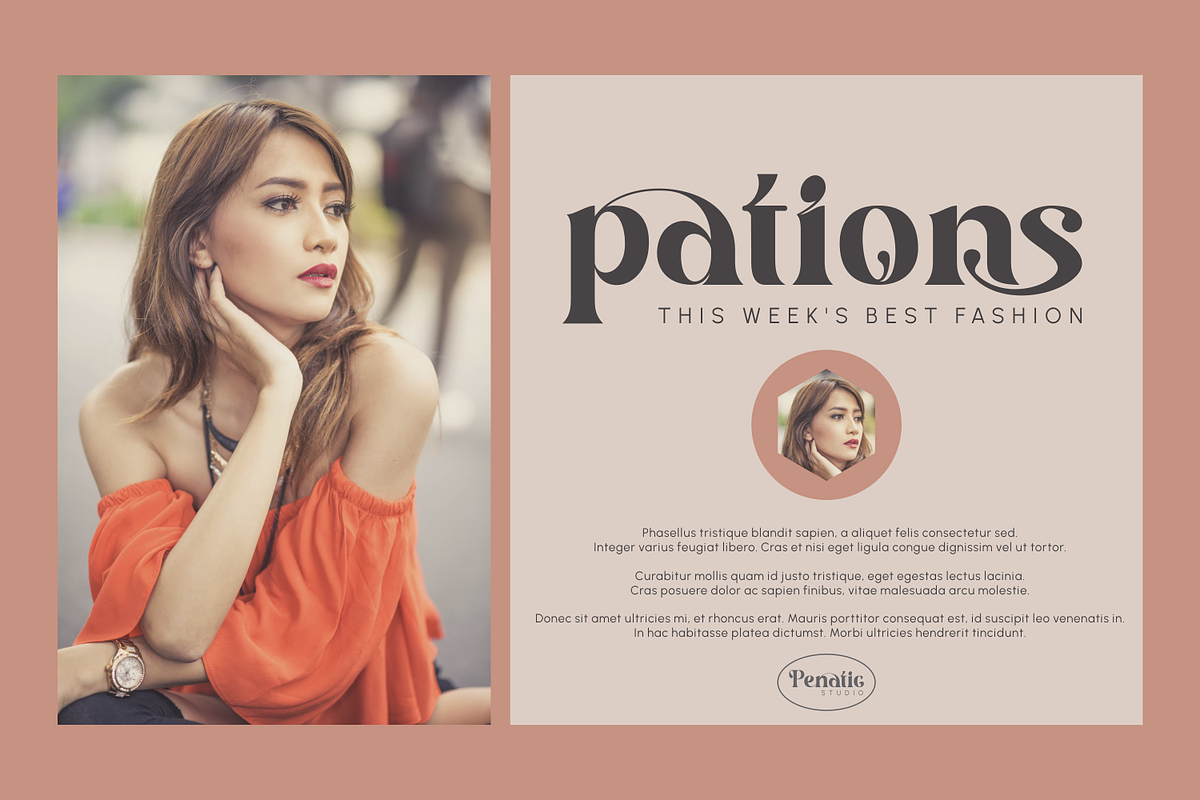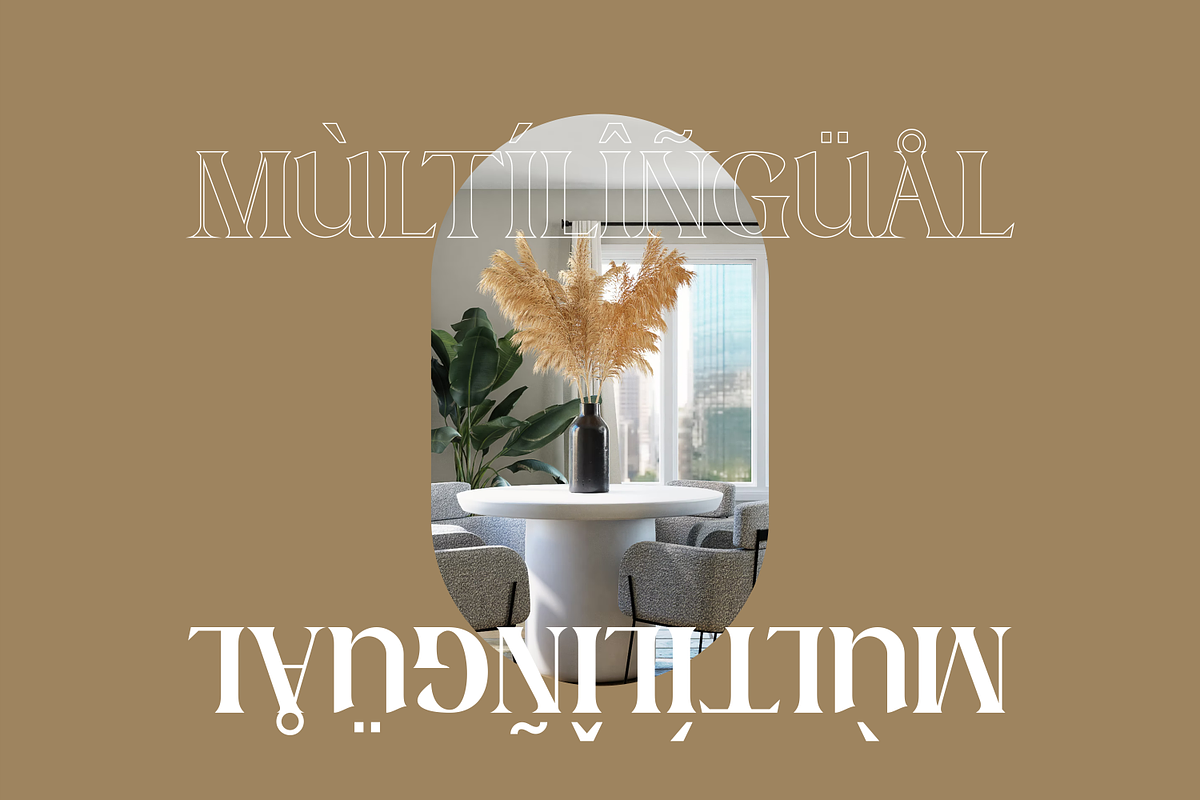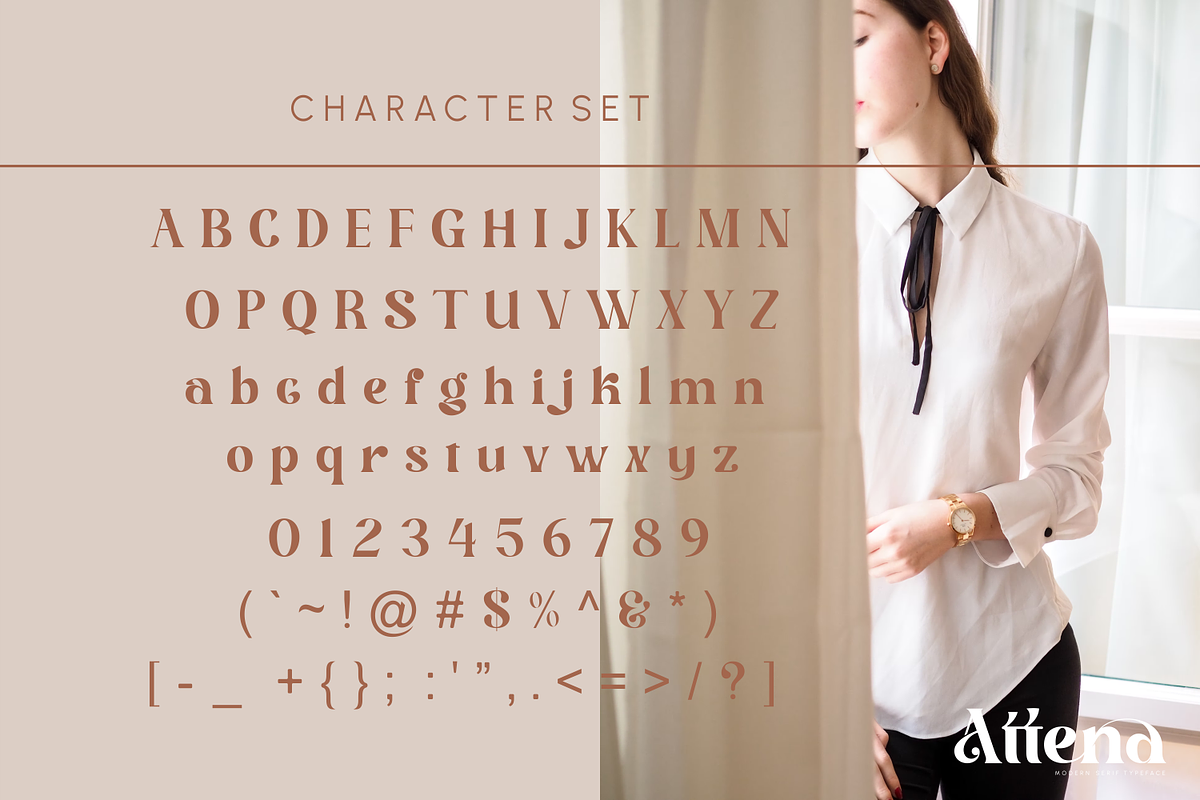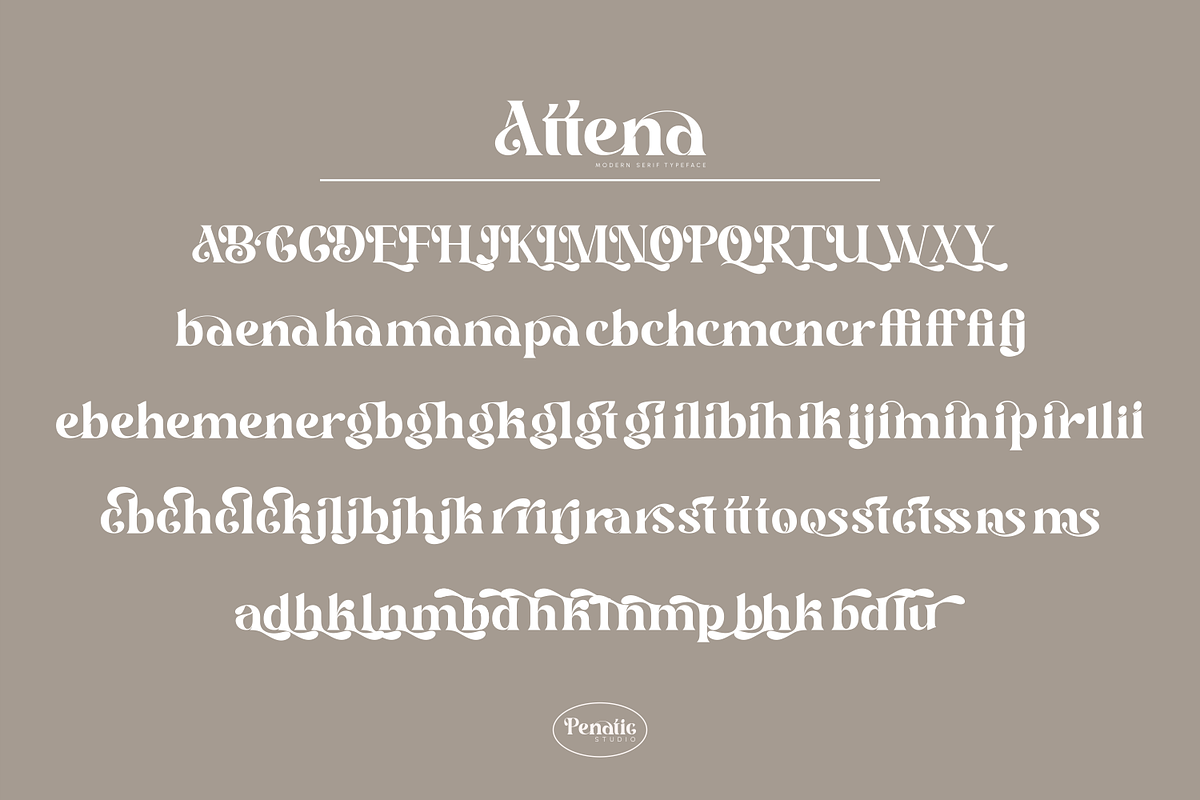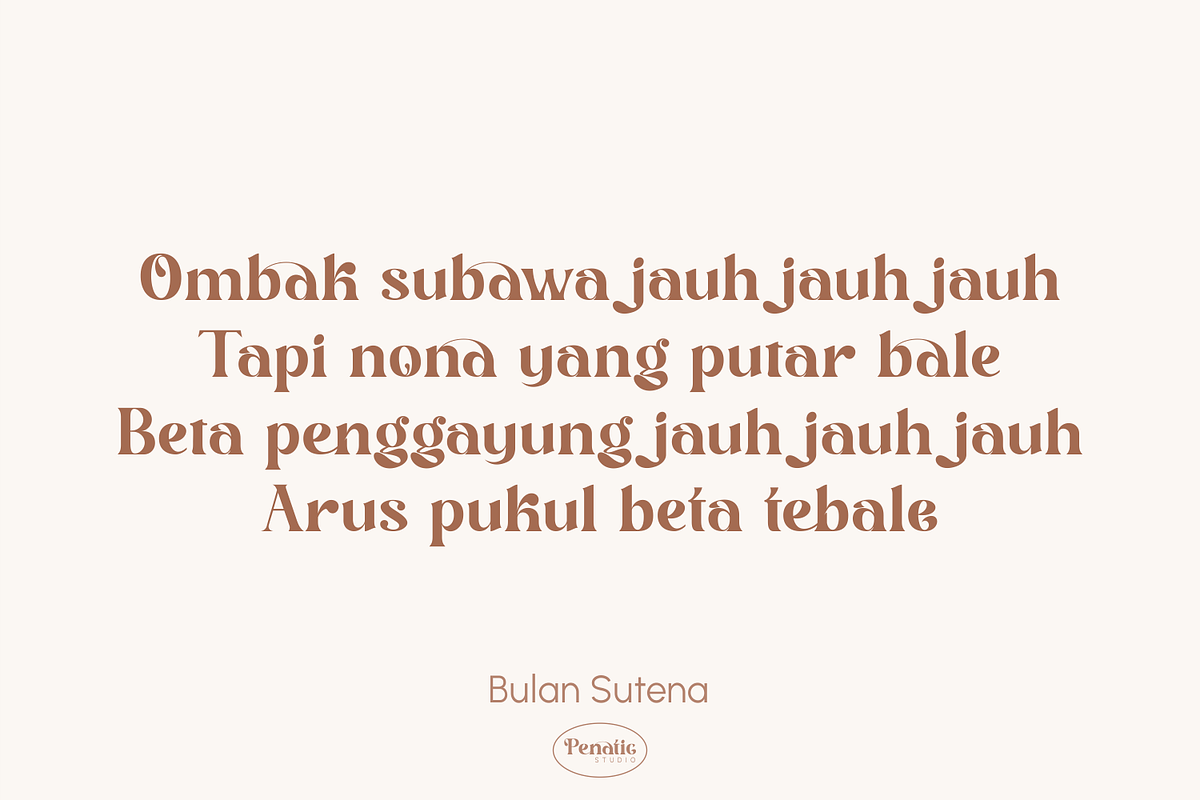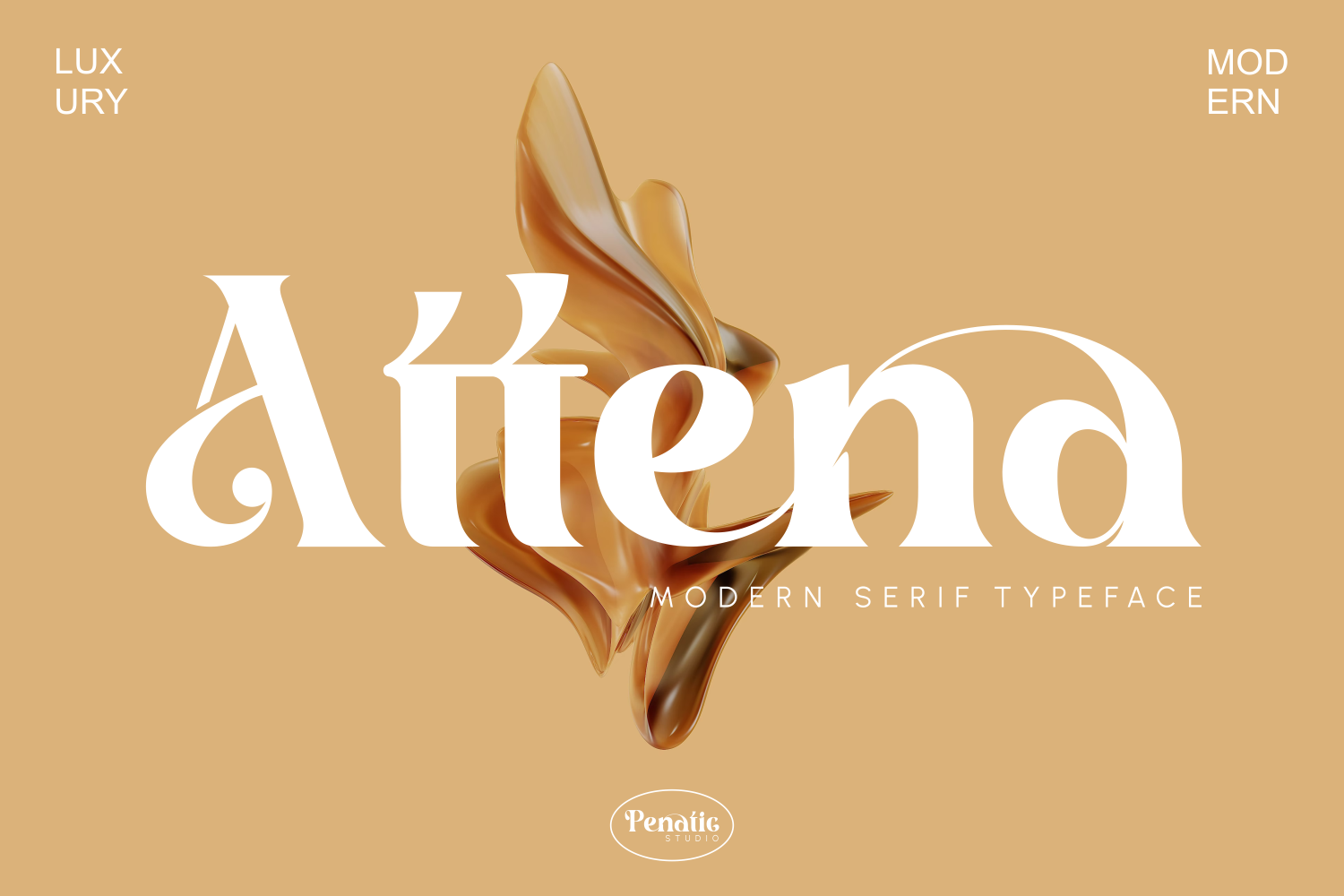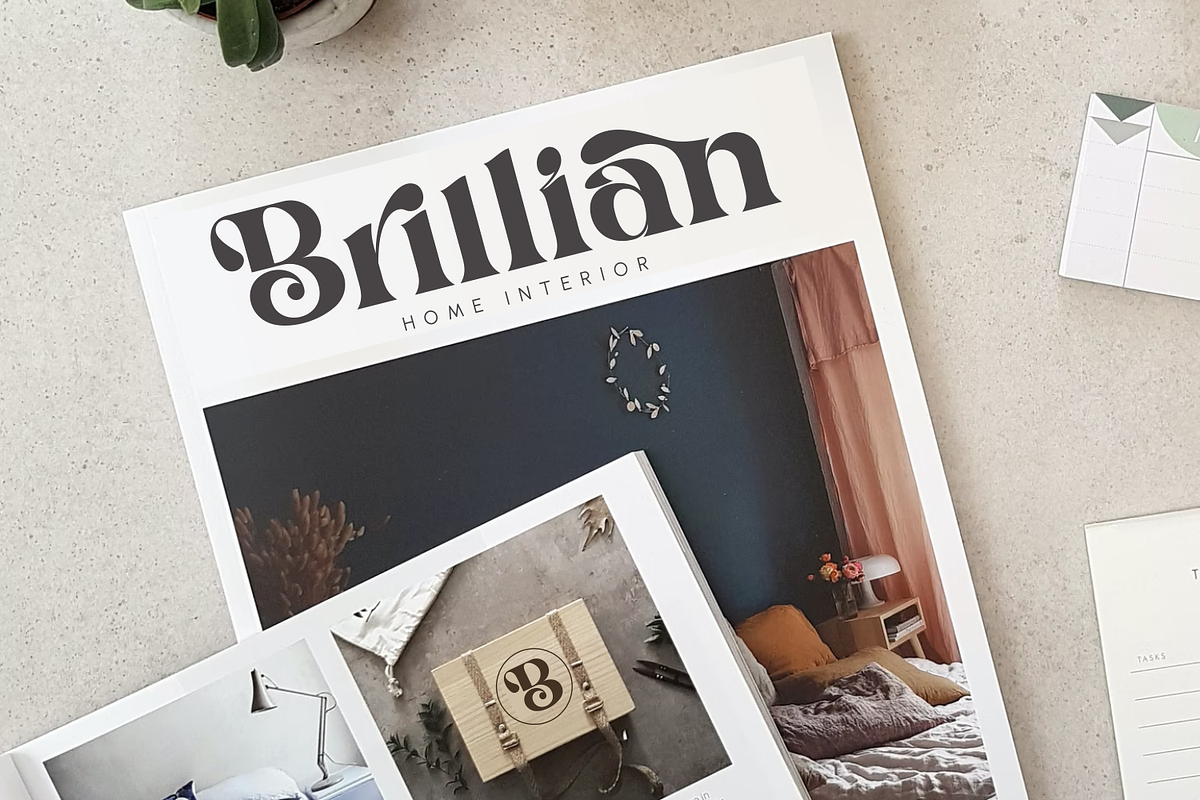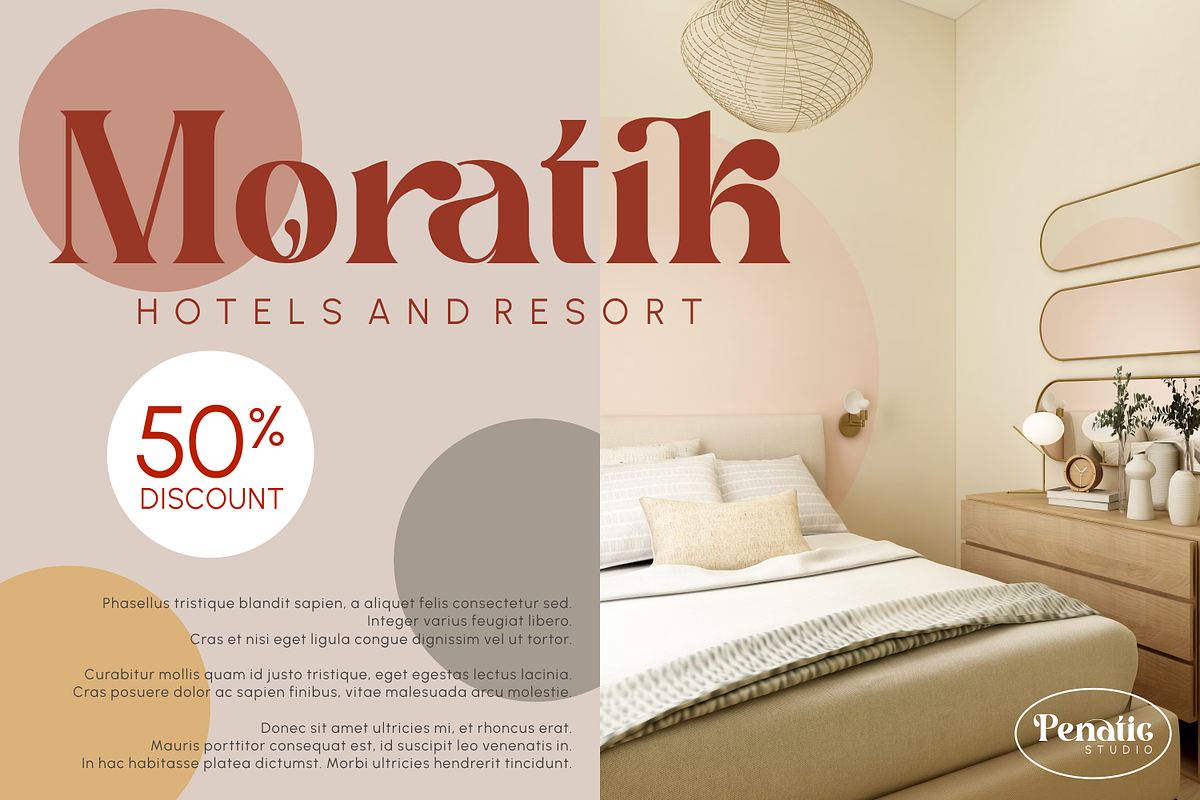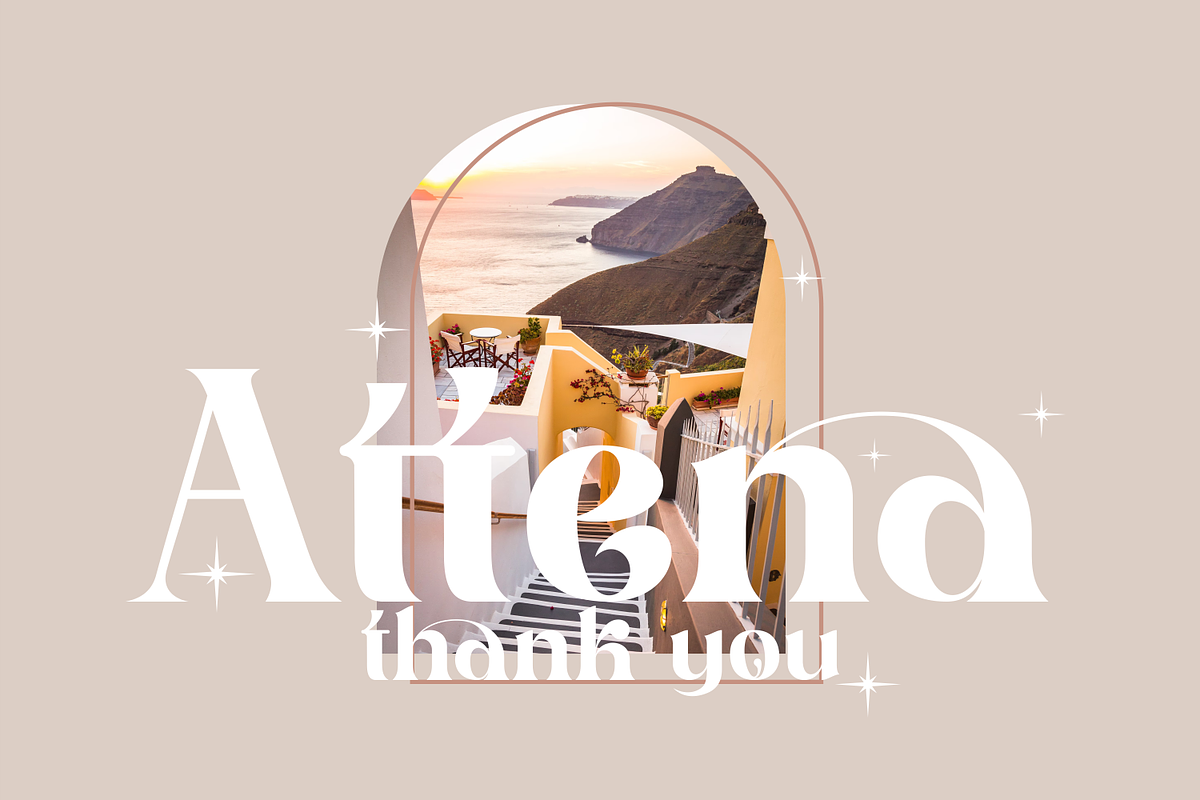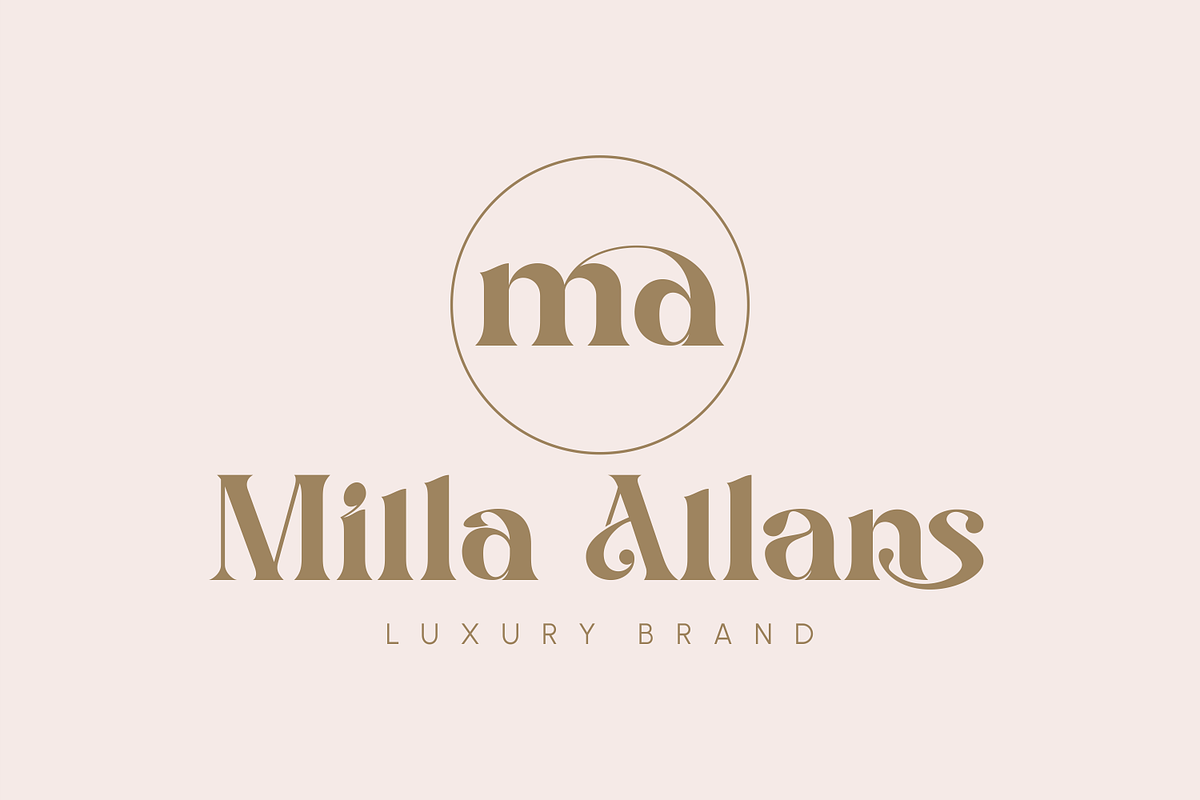
Attena _ modern serif typeface
Attena _ modern serif typeface is a serif font that is designed with many ligatures and alternative fonts that support so that users can use many variations. and very suitable for use for all brand identity needs, invitation cards, poster designs and more.
font that looks modern and also suitable for classic styles because of the appropriate thickness of the font. And it is supported by multilingual.